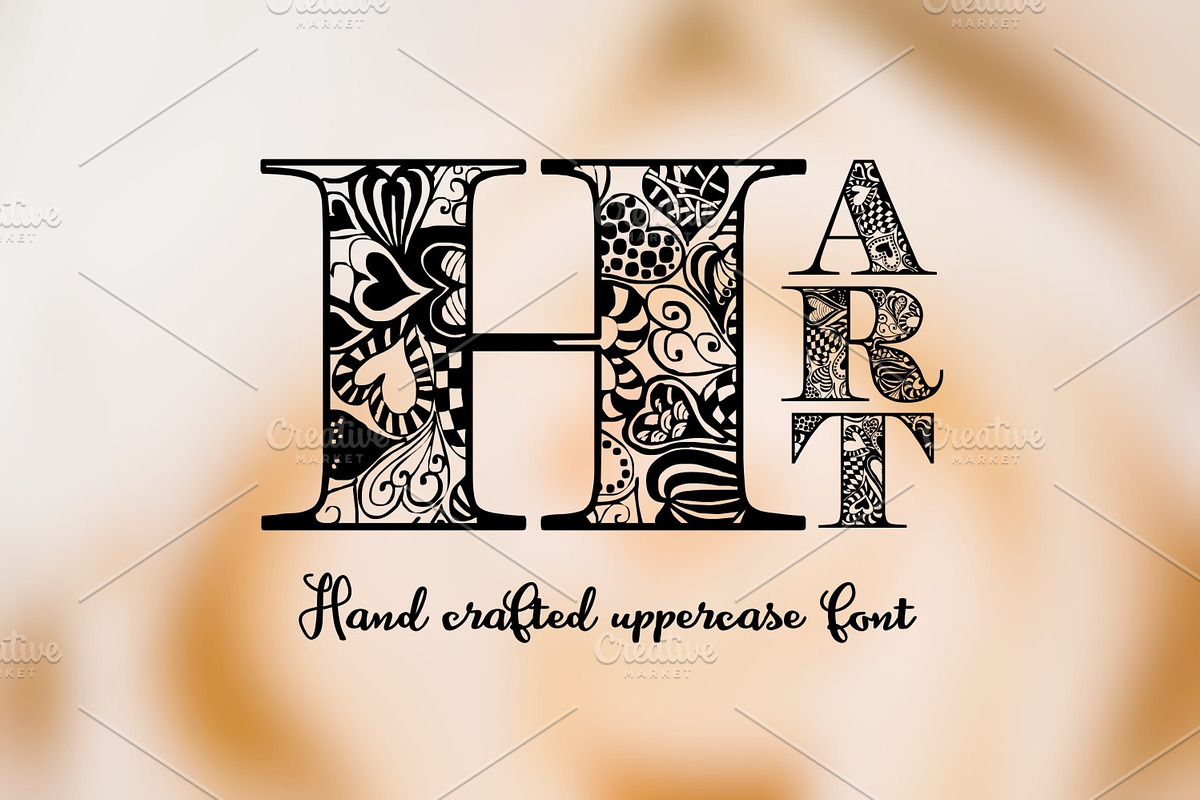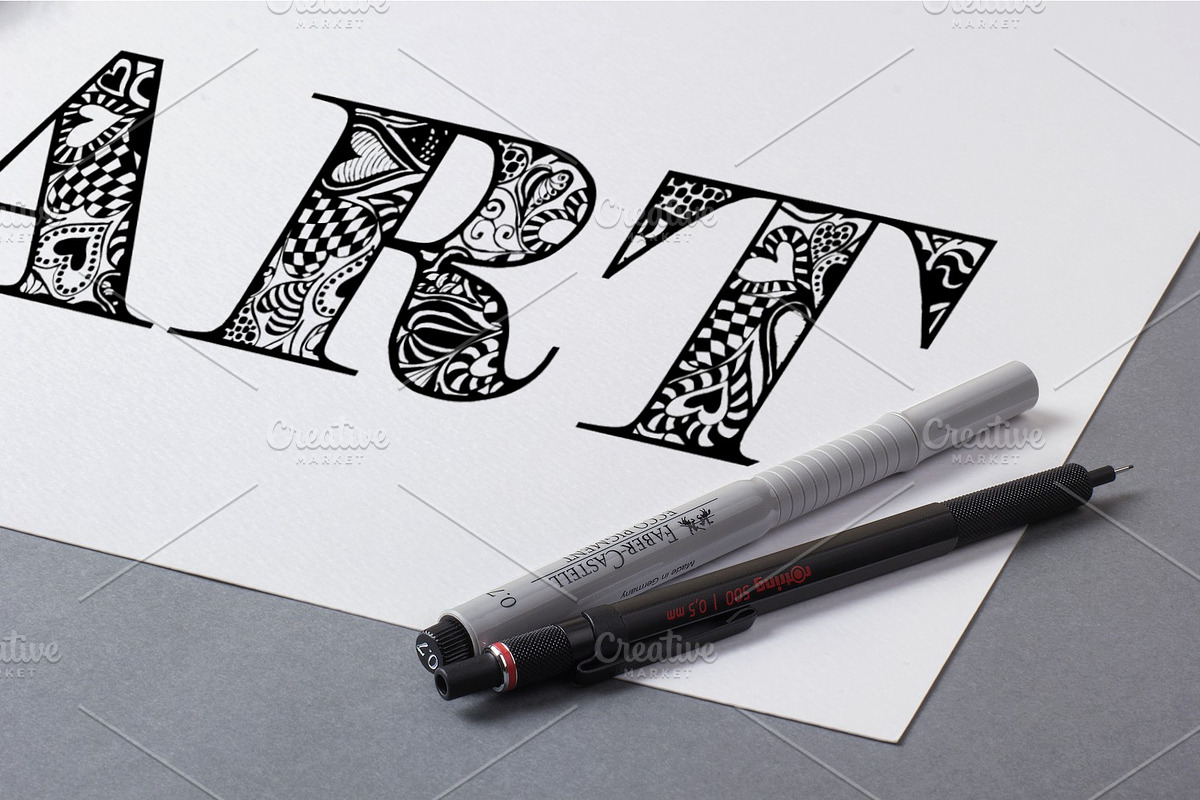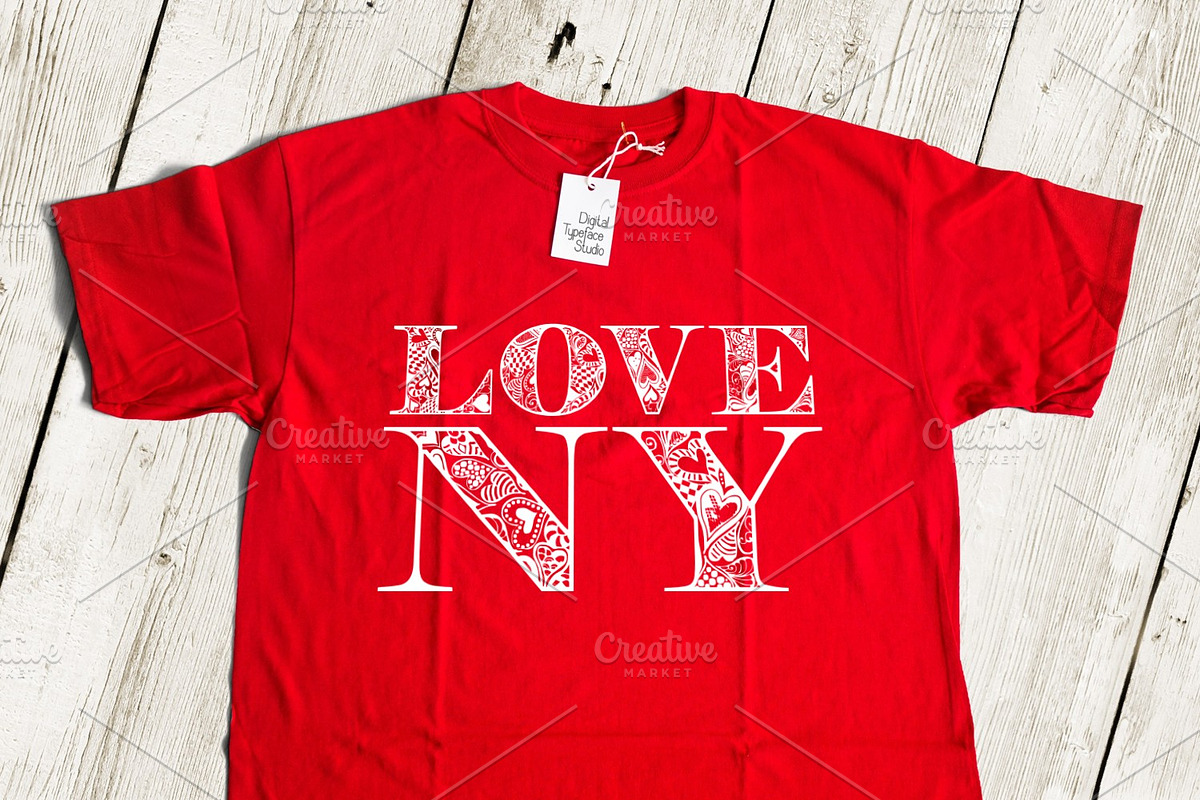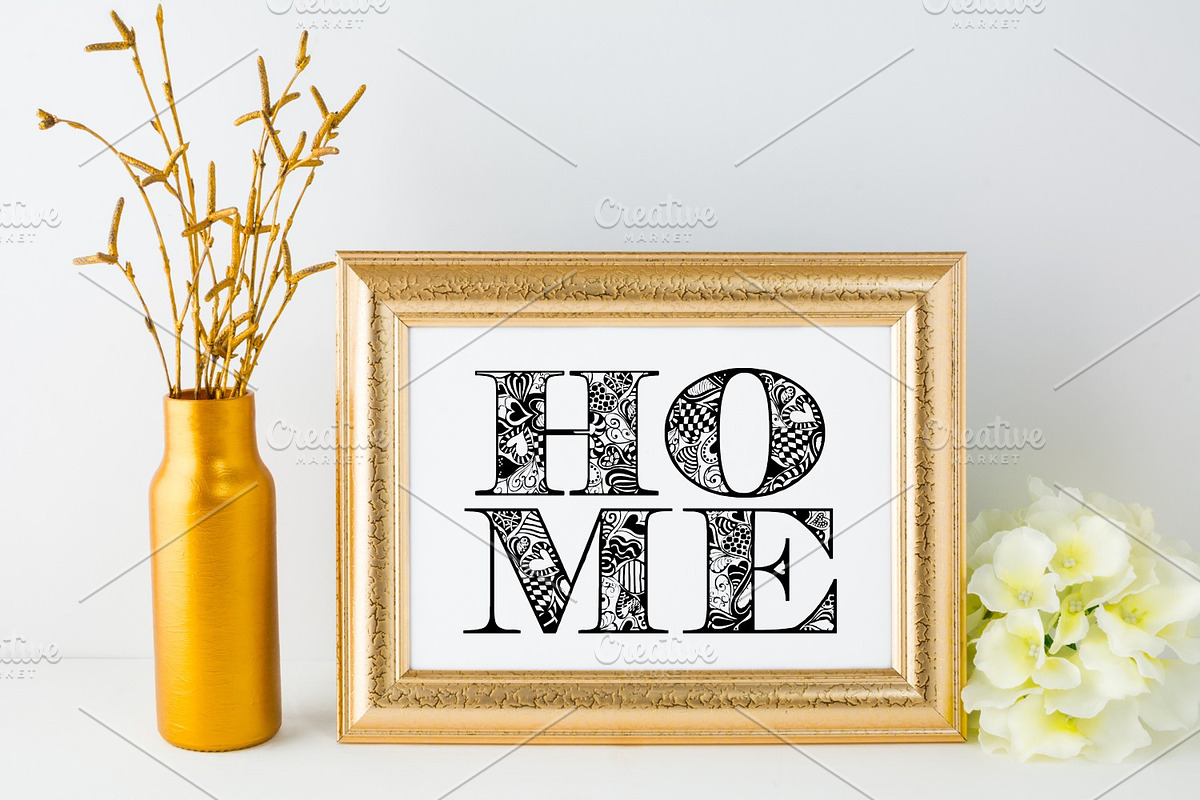
Hart
Introducing Hart - a hand crafted uppercase font.
Why Hart is worth a look
Hart by Digital Typeface Studio fits naturally into Branding, posters, packaging, typography.